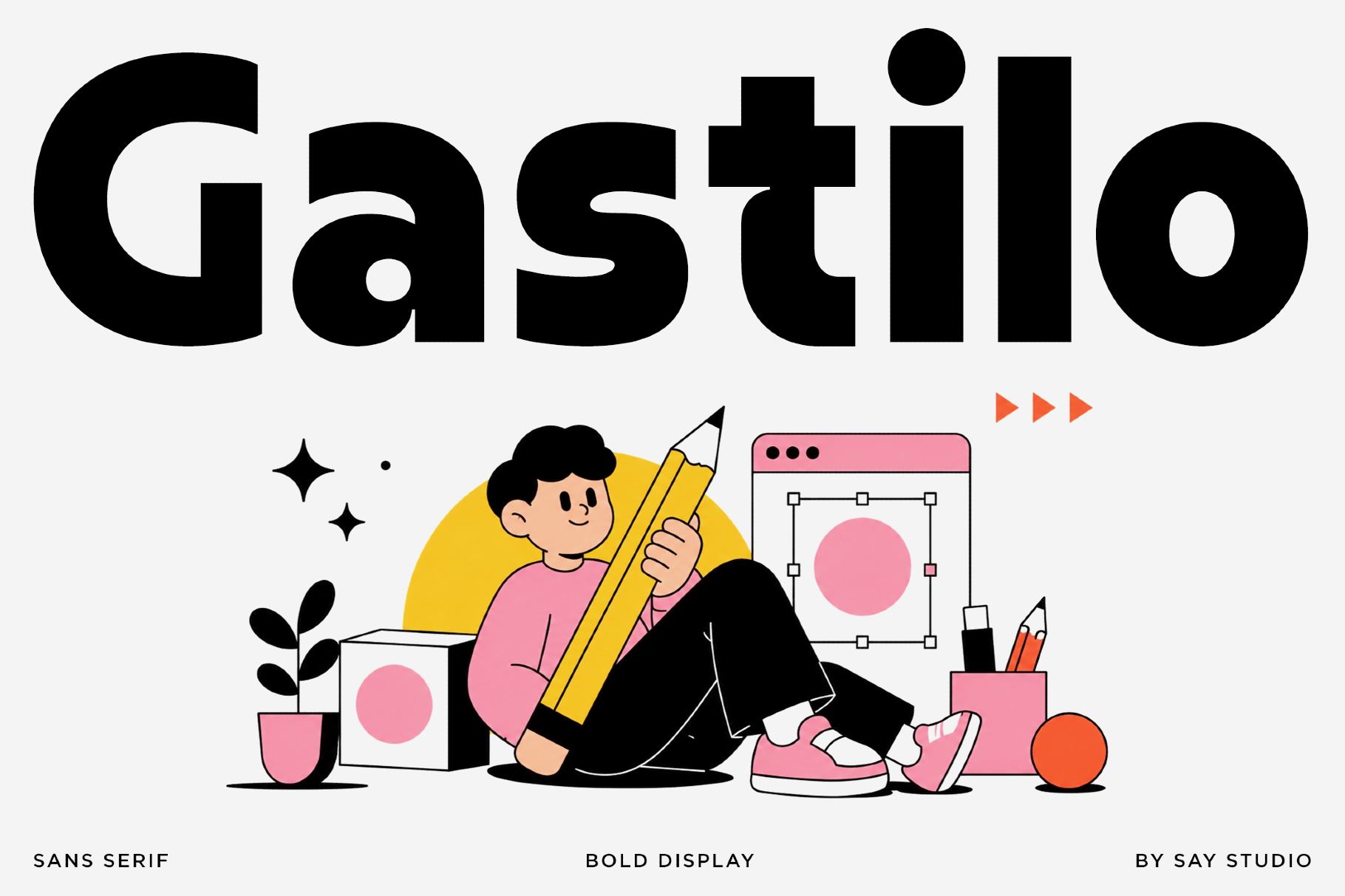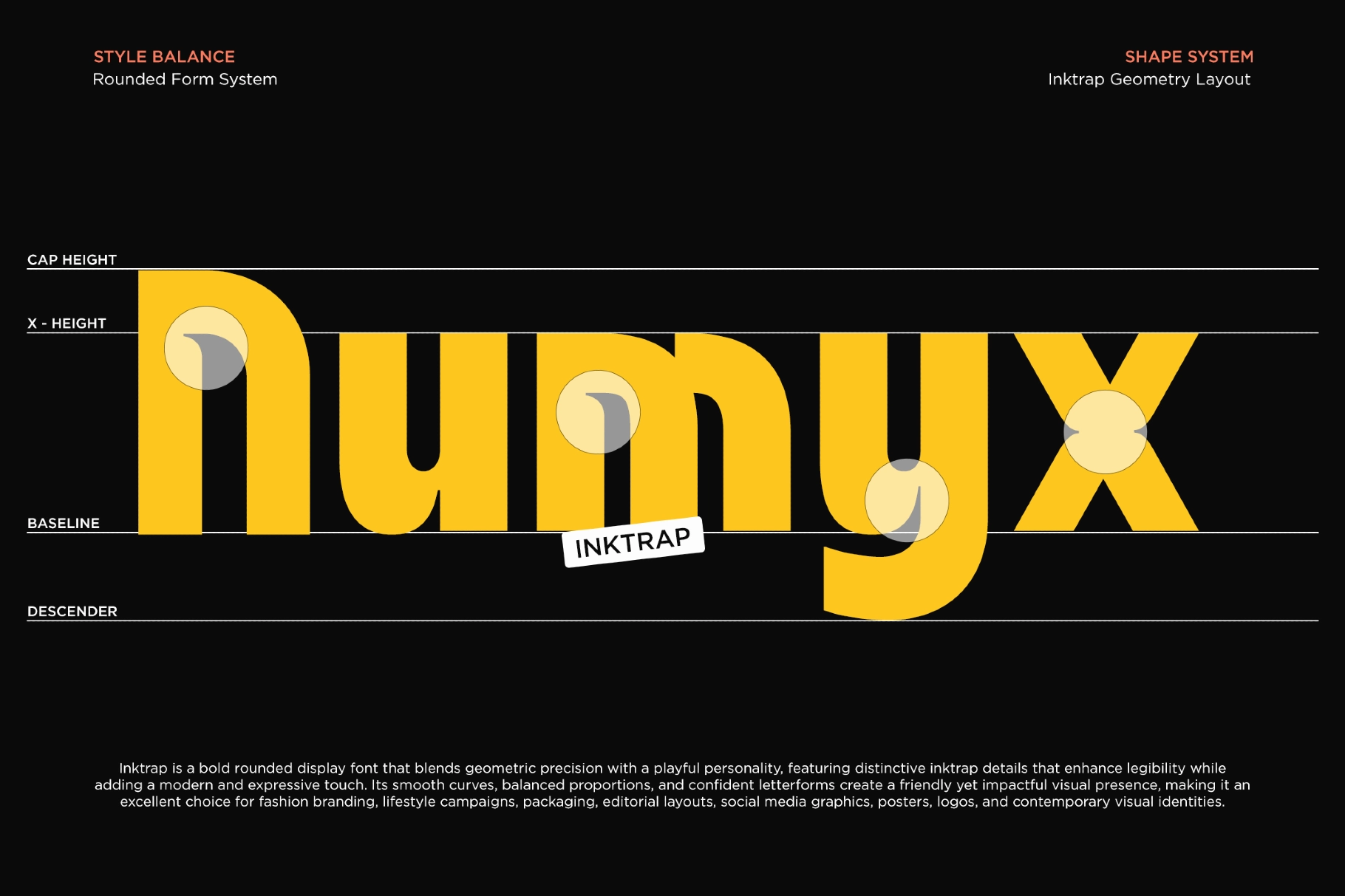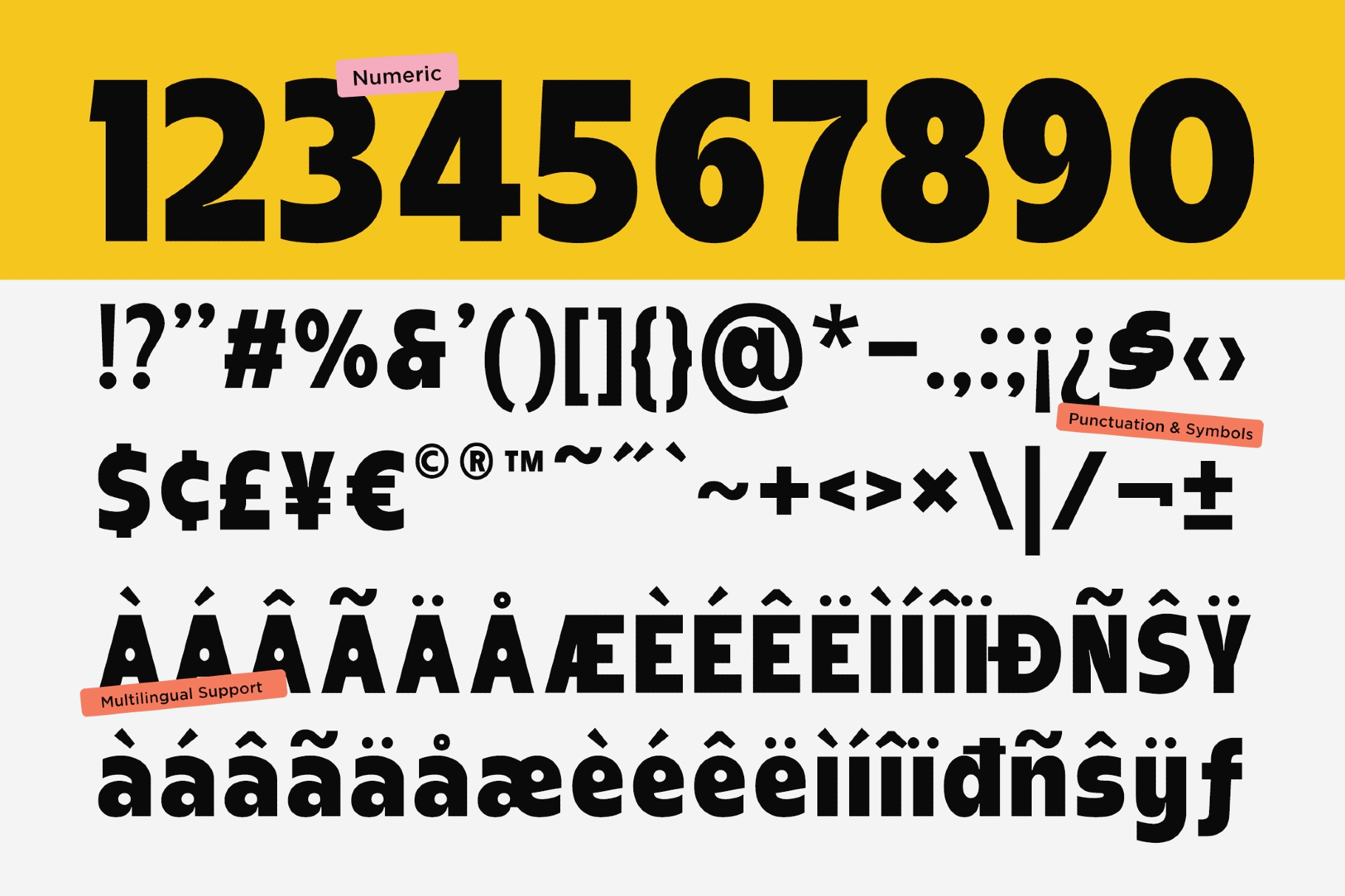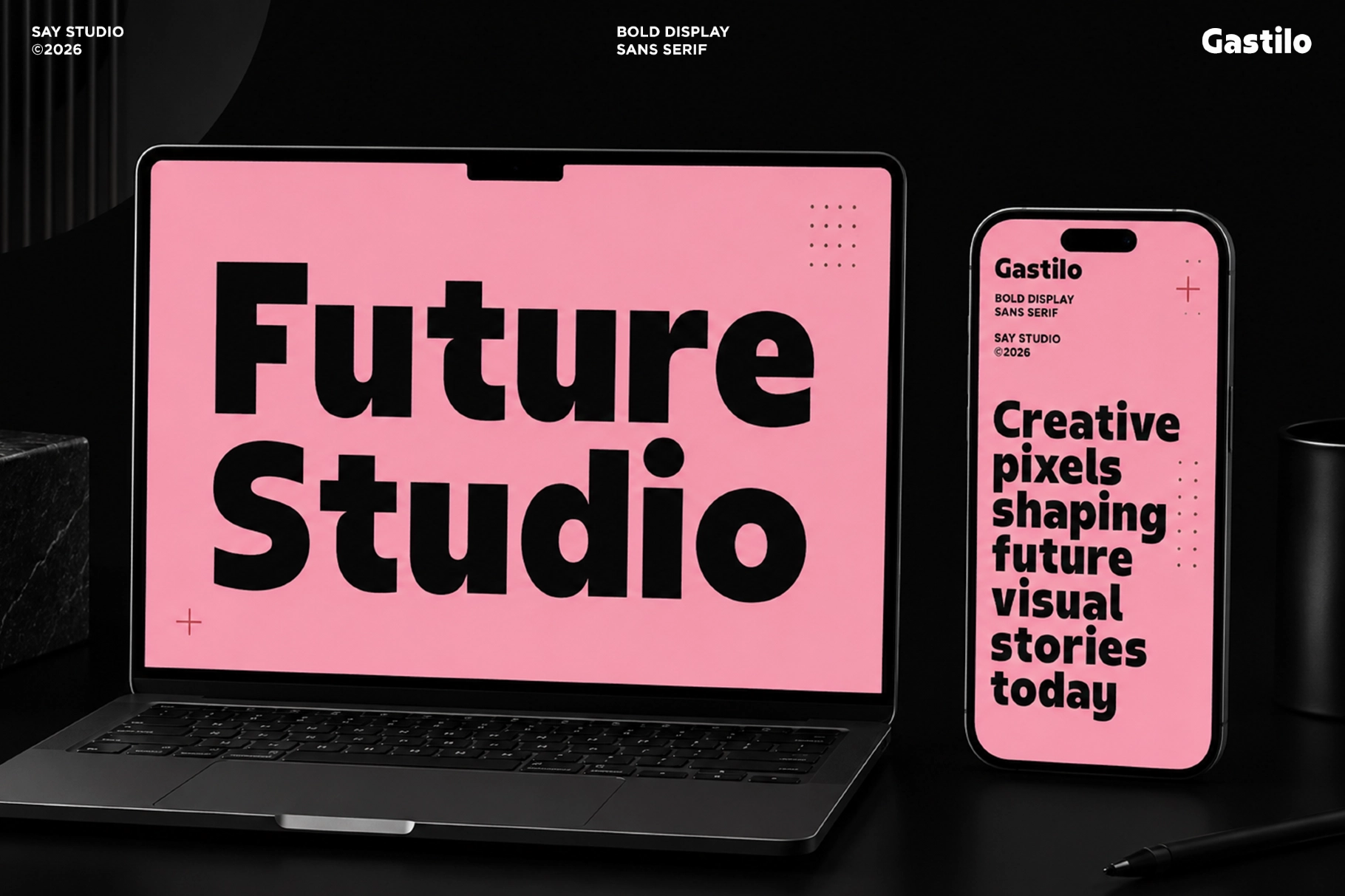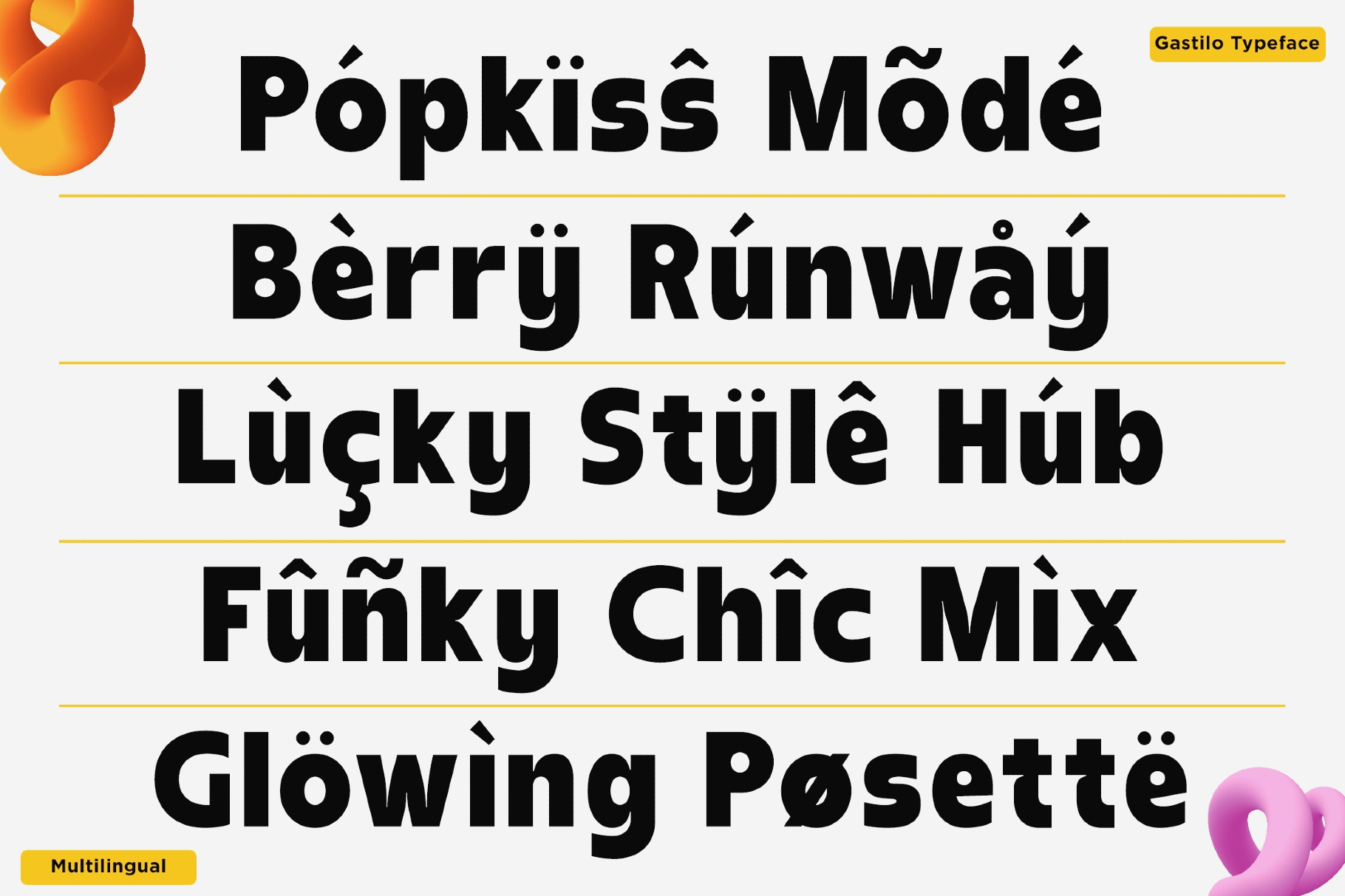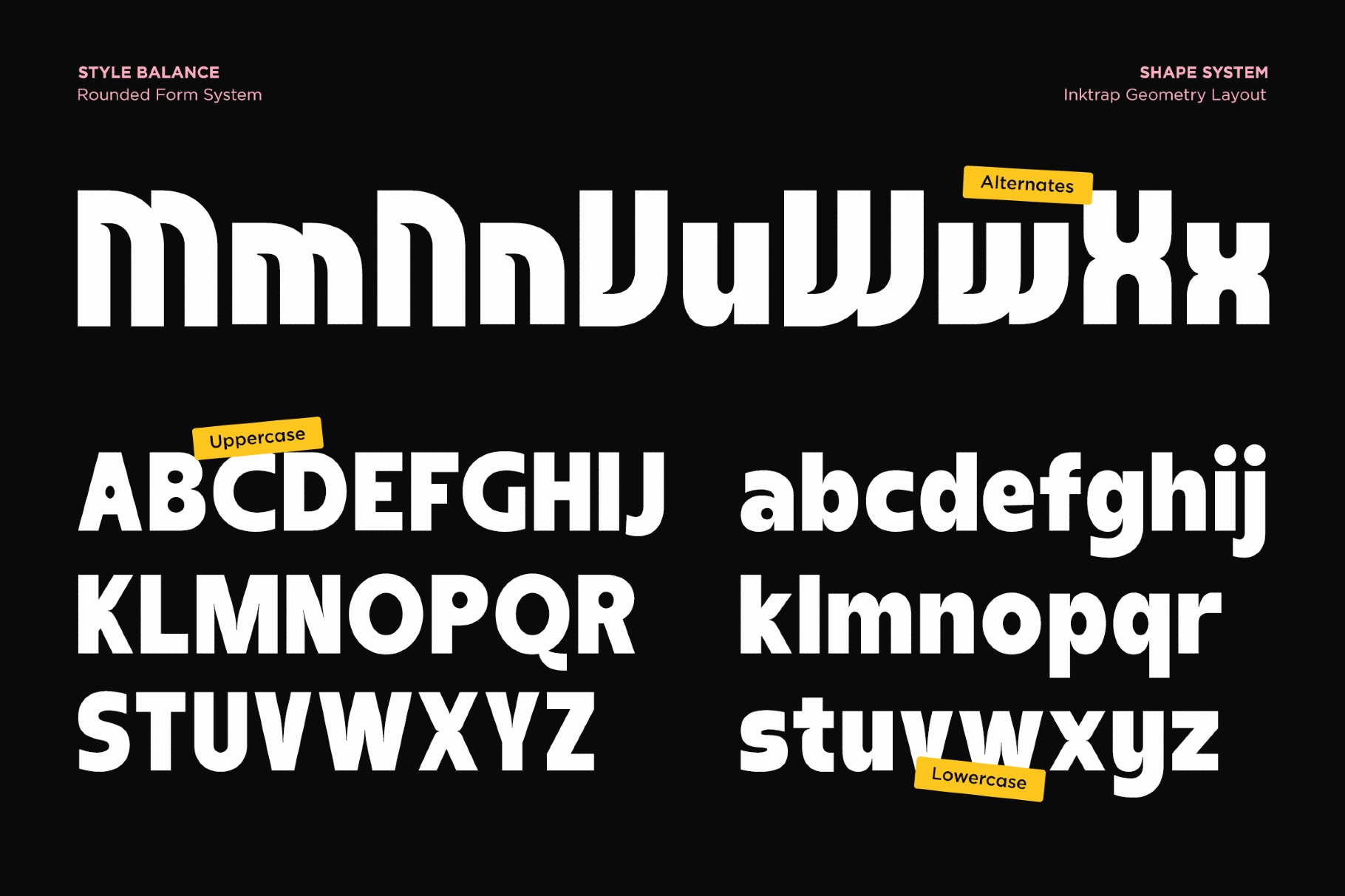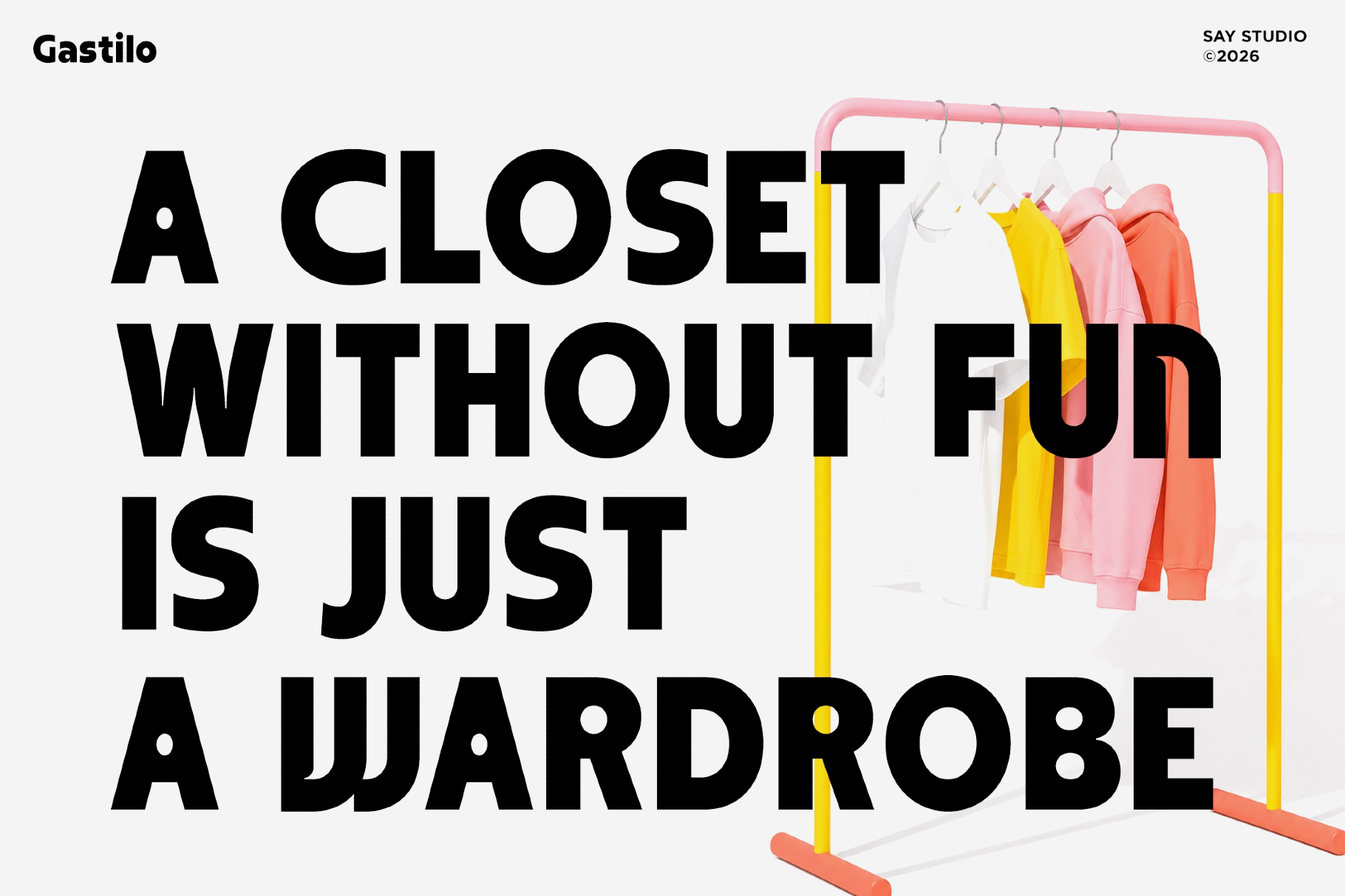
Gastilo - Bold Display Sans Font
Gastilo is a bold display font built on chunky strokes and soft terminals — the spur of the G, the curl of the y, the dot of the i all land closer to a circle than a corner. The x-height runs tall and even, so headlines stay dense and confident without turning heavy.
Gastilo holds up equally well as a wordmark and as a full paragraph of display text, moving from Regular into a true drawn Italic rather than a mechanical slant. Use it for fashion branding, beverage packaging, food labels, editorial headlines, social media graphics, posters, and UI headings.
- 2 styles: Regular, Italic;
- uppercase & lowercase;
- numerals, punctuation & symbols;
- stylistic alternates, two stylistic sets, standard ligatures, and superscript/ordinal figures;
- multilingual support;